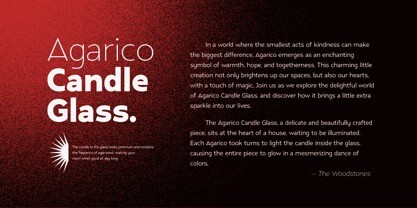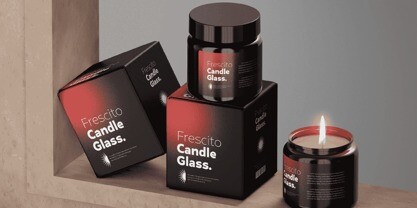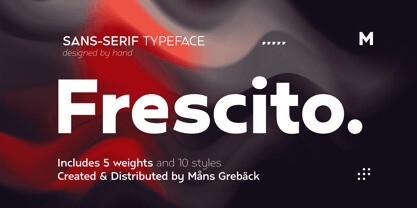
Frescito Font
Frescito Font is a modern sans-serif typeface that embodies a fresh, cool, and street-smart aesthetic. Designed to be both balanced and versatile, its clear and legible monoline style is designed for branding and advertising in editorial and digital design.
The Frescito font family comes in the five classic weights: Thin, Light, Medium, Bold, and Black, along with a Variable font for ultimate flexibility and customization, as well as Italics.
Inspired by the energetic spirit of the city and its vibration, Mans Greback set out to create a typeface that would stand out against vivid moment; a type that would work in a traditional café just as well as for contemporary merchandise.
The result is a font that combines the best of both worlds: an air of freshness and modernity with an unpretentious, timeless and classy appeal.
The font is built with advanced OpenType functionality and has a guaranteed top-notch quality, containing stylistic and contextual alternates, ligatures, and more features; all to give you full control and customizability. It has extensive lingual support, covering all Latin-based languages, from Northern Europe to South Africa, from America to South-East Asia. It contains all characters and symbols you’ll ever need, including all punctuation and numbers.